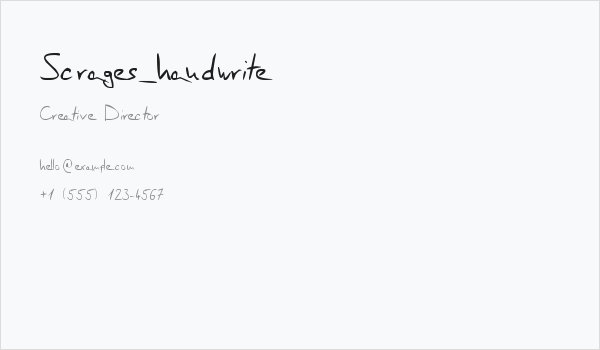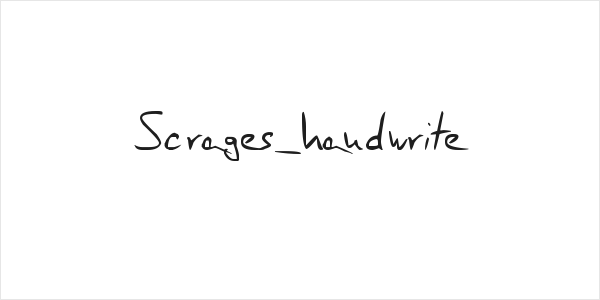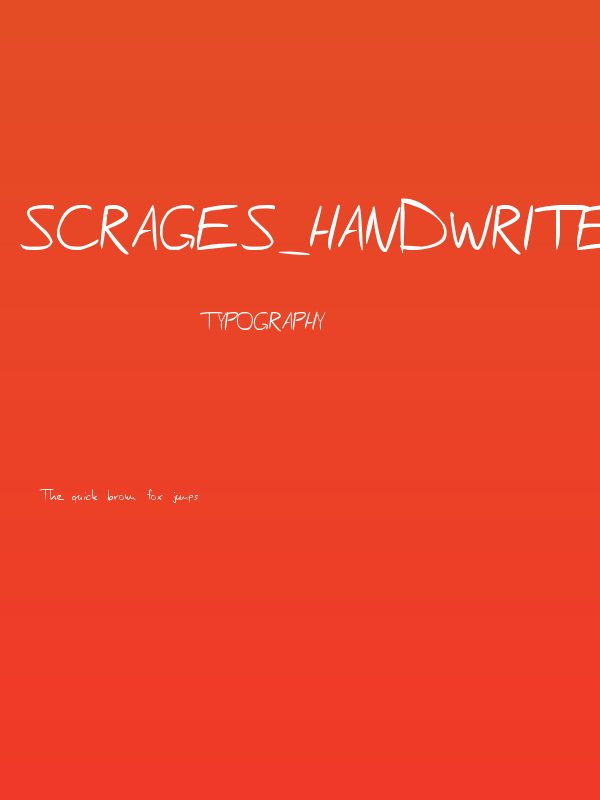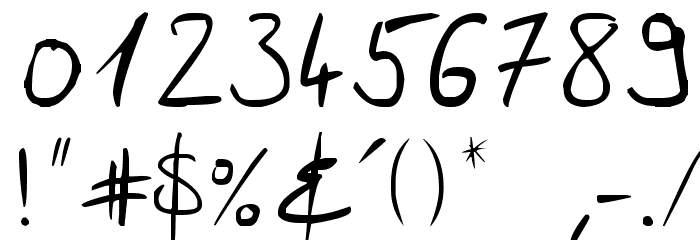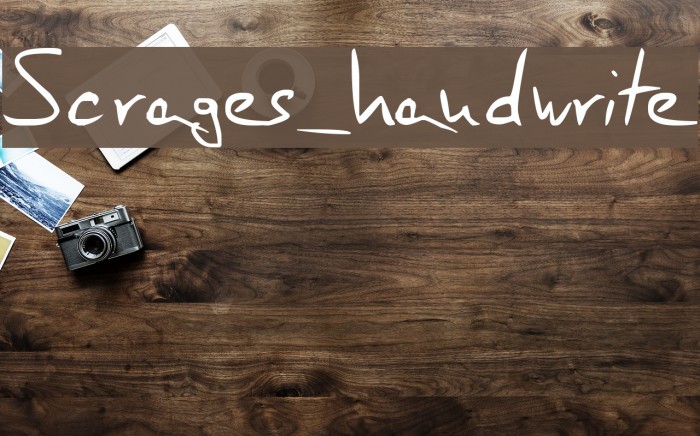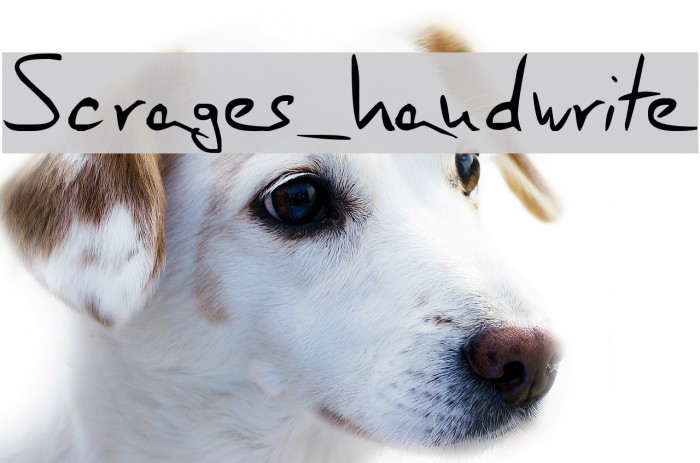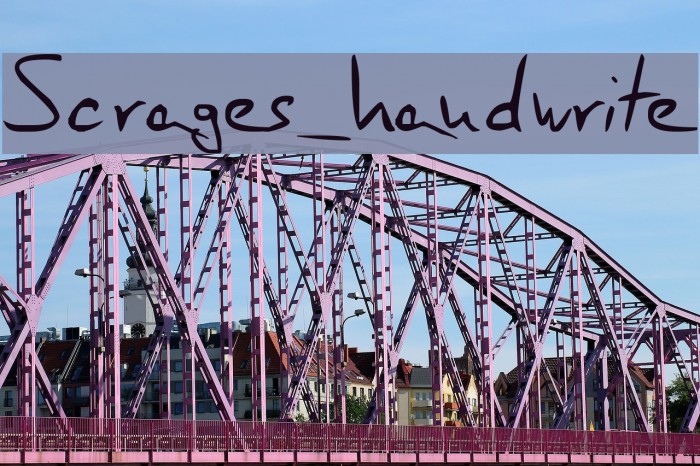
Scrages_handwrite Font
Scrages_handwrite Description
This font embodies a casual, handwritten style with a playful and informal appearance. The letters are slightly slanted, giving a dynamic and energetic feel. The strokes vary in thickness, adding a touch of spontaneity and authenticity, reminiscent of natural handwriting. The uppercase letters are bold and prominent, while the lowercase letters maintain a consistent flow with rounded edges. Numbers and special characters follow the same handwritten aesthetic, ensuring a cohesive look across all elements. This font is ideal for projects that require a personal touch or a relaxed vibe.
| Proposed Projects | Great for greeting cards, personal notes, informal invitations, and creative branding. |